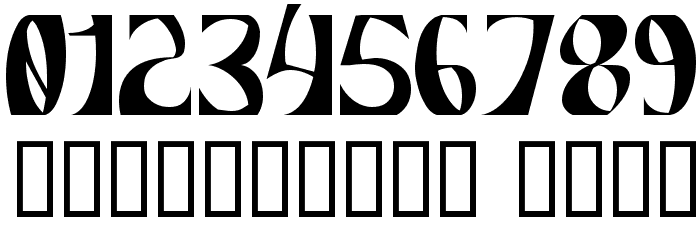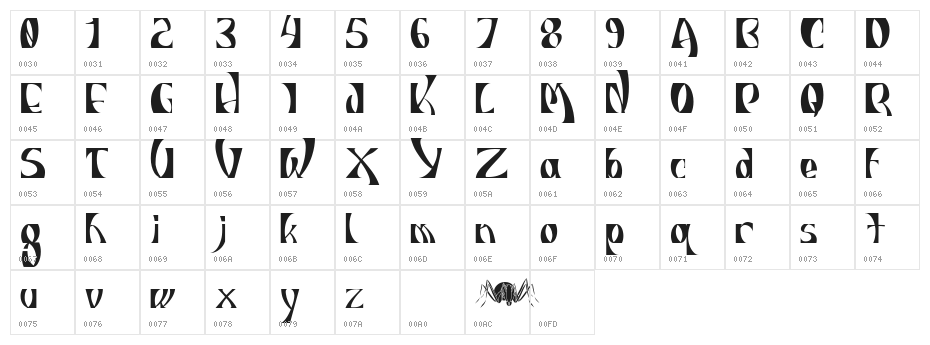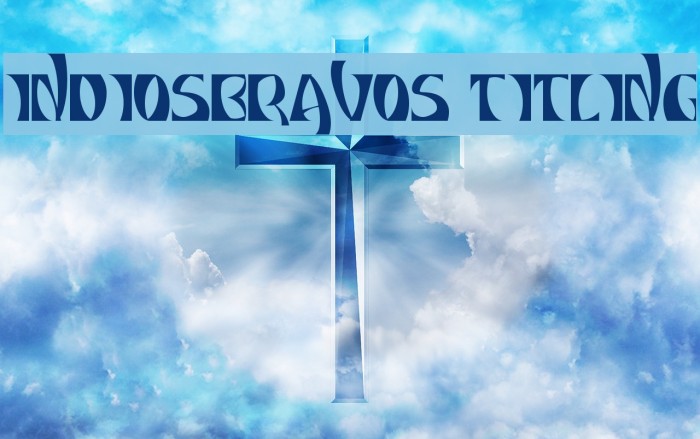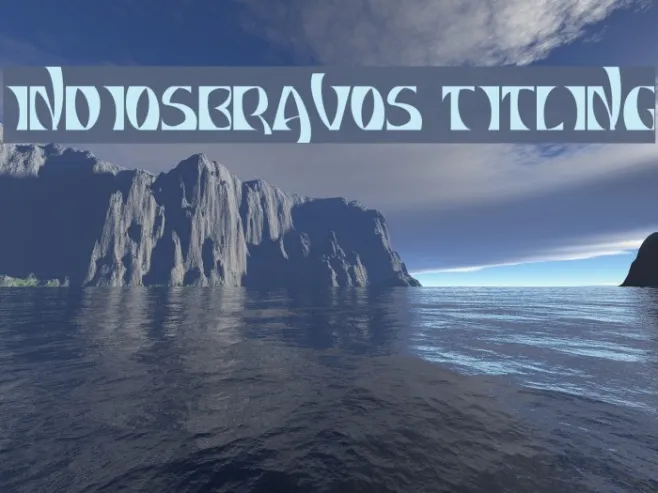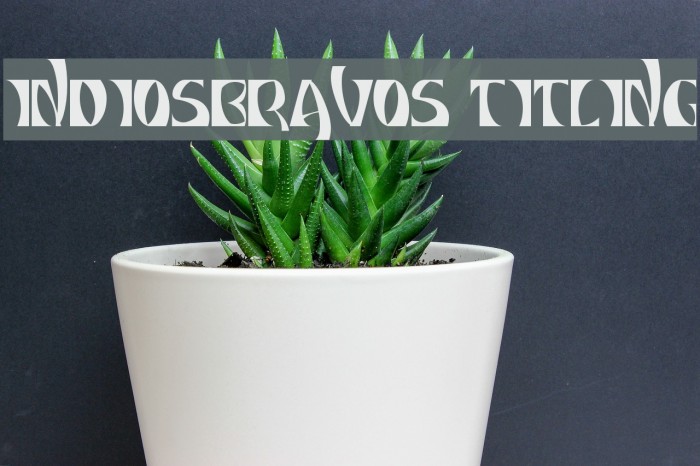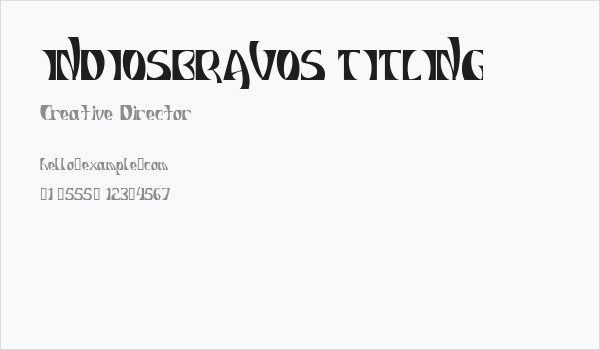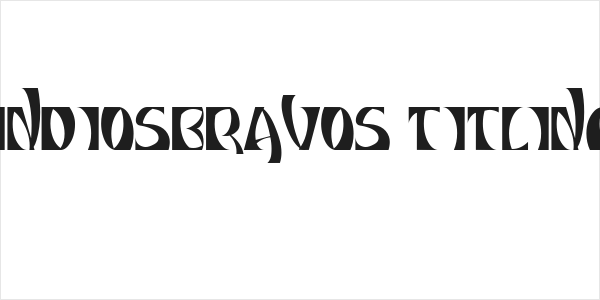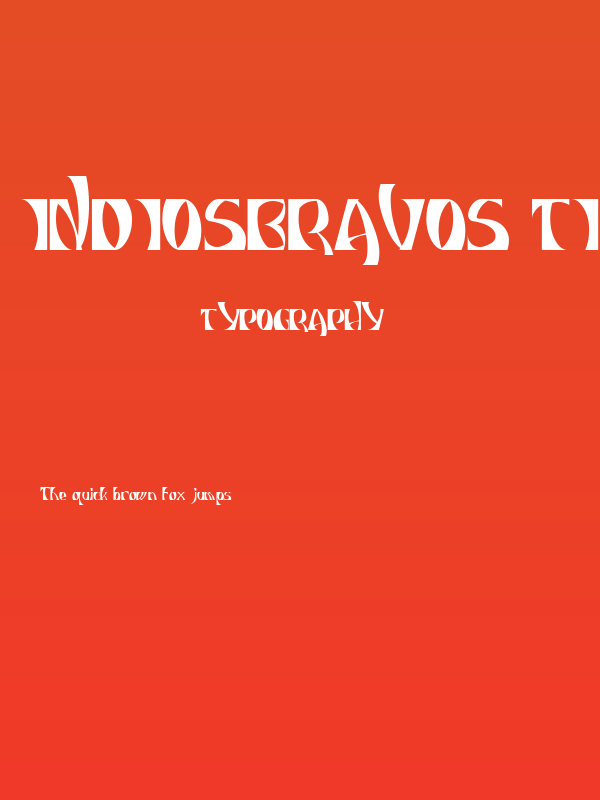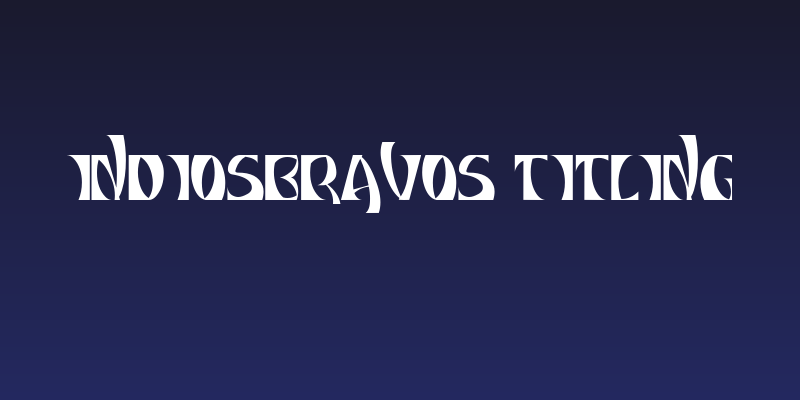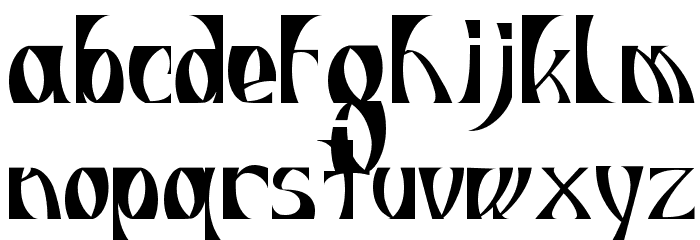
INDIOSBRAVOS TITLING Font
This font features a bold and dynamic style with a unique blend of sharp angles and smooth curves. The uppercase letters exhibit a strong presence with their thick strokes and distinctive geometric shapes, while the lowercase letters maintain a consistent style with slightly more fluid forms. The numerals are equally bold, ensuring readability and impact. The overall design is modern and artistic, making it suitable for creative and expressive projects. The character spacing is tight, enhancing the compact and cohesive appearance of the text.
| Proposed Projects | Ideal for branding, posters, and artistic designs that require a strong visual impact. |